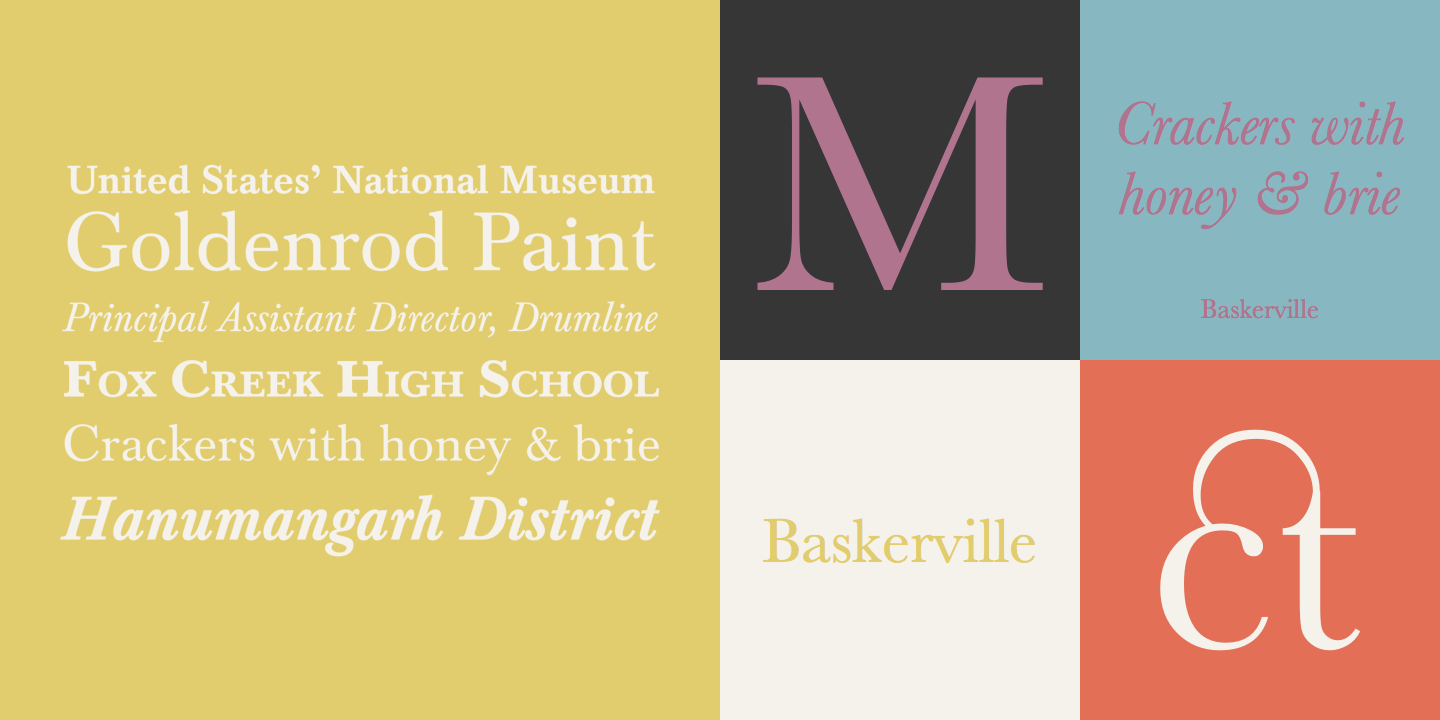
Baskerville LT Font is perfect for classical literature publications, academic scholarly texts, prestigious university materials, traditional book publishing, formal legal documents, institutional communications, heritage brand identities, distinguished editorial layouts, cultural exhibition catalogs, and authoritative historical reproductions. This distinguished typeface excels in applications where scholarly authority and classical elegance need to be communicated with typographic excellence and intellectual sophistication that embodies the essence of traditional publishing and the timeless beauty found in classical British typography and literary traditions.
What makes Baskerville LT Font exciting is its remarkable ability to embody the pinnacle of eighteenth-century typographic refinement through its precisely balanced letterforms that represent one of history's most influential and enduring typeface designs, creating an immediate sense of scholarly authority and literary sophistication. The font captures the essence of classical typography with its refined construction and historically perfected proportions that suggest the meticulous craftsmanship of master type designers and the intellectual rigor of serious academic discourse. Its elegantly crafted character details and scholarly personality create an atmosphere of intellectual distinction that resonates with publishers, academics, and cultural institutions who understand the importance of typographic heritage in establishing credibility and conveying serious intellectual content.
The Baskerville LT Font family typically includes Roman, Italic, Semi Bold, and Bold weights, each maintaining the signature classical characteristics and scholarly elegance. Some versions offer Small Caps, Old Style Figures, and traditional ligatures that enhance the authentic historical experience, alternative character sets with scholarly notation support, and specialized elements designed for academic and literary applications. The family may also include display cuts optimized for titles and headlines requiring maximum classical impact and scholarly credibility in educational and cultural presentations.
Whether you're creating academic publications, cultural institution materials, or classical literary communications, Baskerville LT Font Free Download delivers the perfect scholarly authority your intellectually-focused projects deserve. Its classical character and academic styling make it an invaluable choice for universities, publishers, and cultural organizations working in scholarly publishing, academic research, and classical literature sectors where authentic typographic heritage and intellectual sophistication are essential for establishing scholarly credibility and honoring the distinguished traditions of academic discourse and literary excellence.